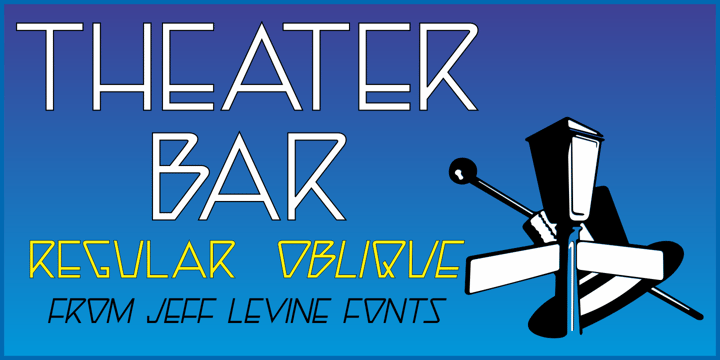
Theater Bar JNL
von Jeff Levine
Die Schriftfamilie Theater Bar JNL wurde von Jeff Levine entworfen und von Jeff Levine veröffentlicht. Theater Bar JNL enthält 2 Stile und Familienpaketoptionen.
The name and design inspiration for Theater Bar JNL comes from an image of an old bar with an overhead neon sign in very stylized sans serif lettering (most likely from the 1940s) and is available in both regular and oblique versions.